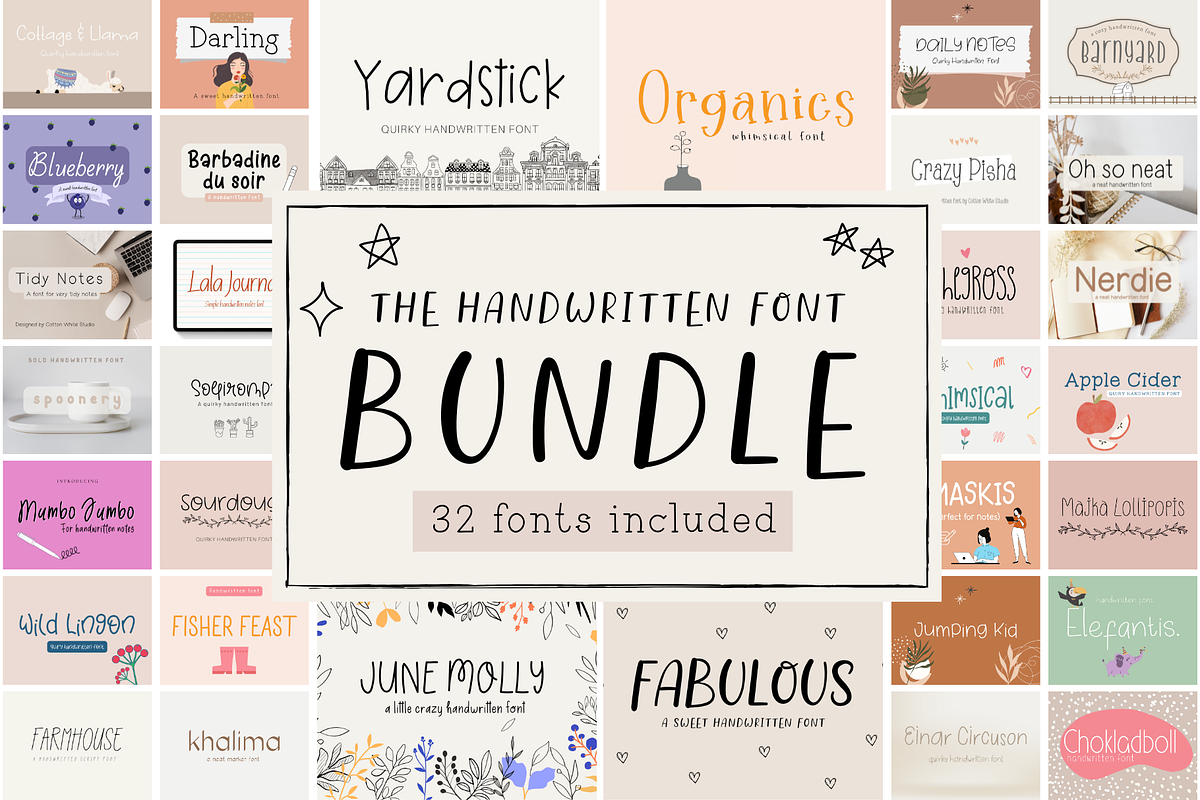
You must purchase this font for commercial use. However, you can download The Handwritten Font Bundle Free Download for testing purposes. The Handwritten Font Bundle is a collection of elegant, casual, and stylish handwritten fonts, offering a variety of options to suit different design needs. Whether you're creating logos, invitations, branding, social media posts, or personal projects, this bundle gives you plenty of versatile fonts to choose from.
The fonts in The Handwritten Font Bundle feature different styles, from bold and expressive scripts to delicate and refined handwritten fonts, providing endless possibilities for creative designs. Whether you're working on a chic branding project, crafting a heartfelt invitation, or adding a personal touch to a product label, this bundle will bring charm and authenticity to your typography.